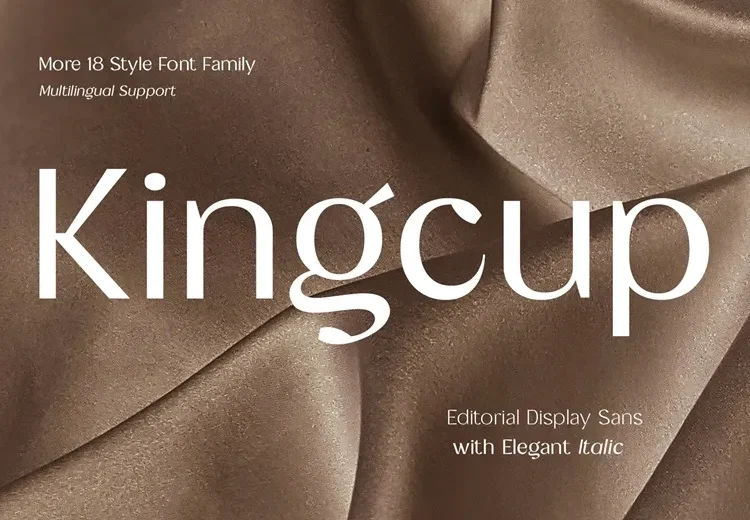
Kingcup Font
Kingcup is a contemporary sans-serif font boasting 18 styles, ranging from thin to black and regular to italic. Its smooth design and visually appealing features make it a versatile choice for a wide array of design applications, including branding, logos, weddings, social media, advertisements, and packaging.
With exceptional legibility, Kingcup excels in both web and print environments, ensuring a polished and professional appearance for any project. Whether you’re designing invitations, editorial layouts, or creating captivating content, this font offers the perfect balance of elegance and modernity.